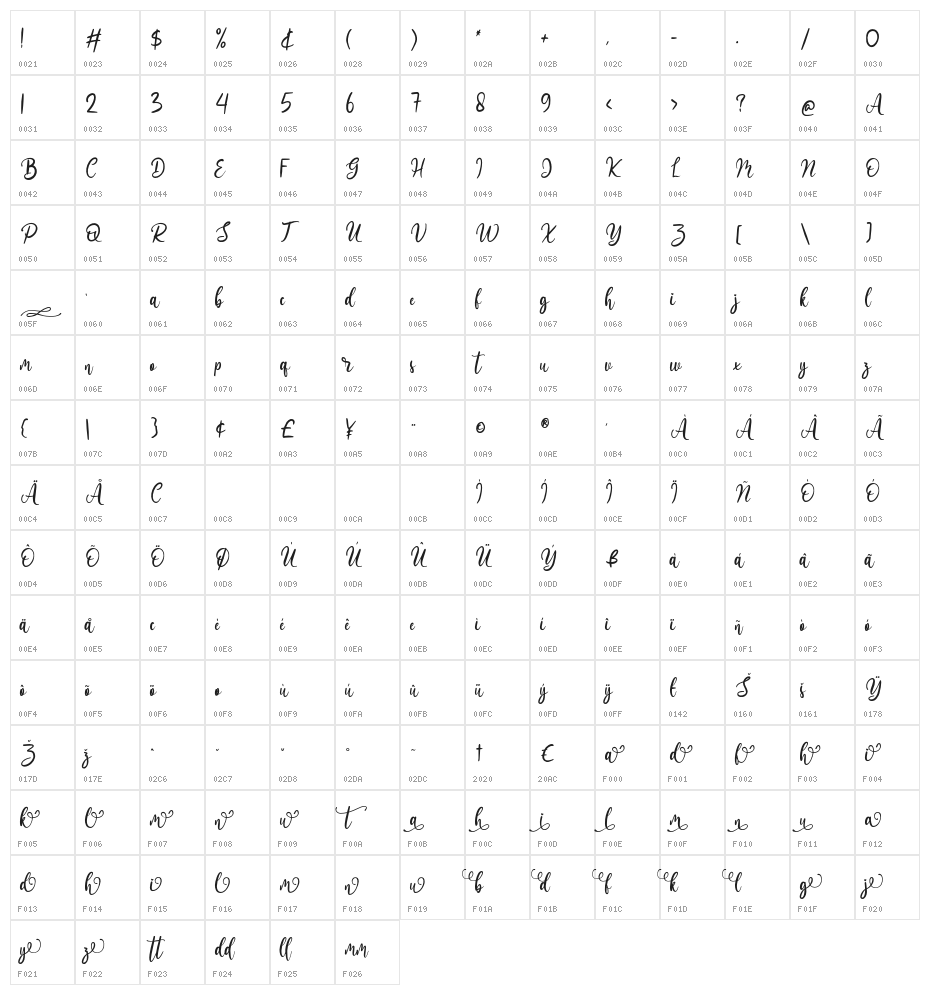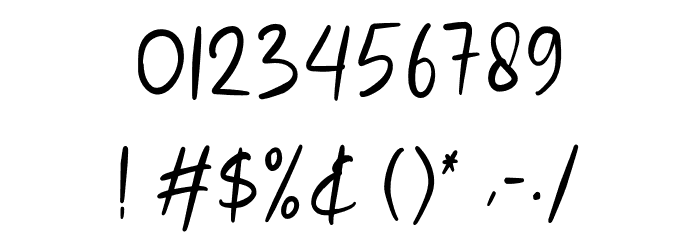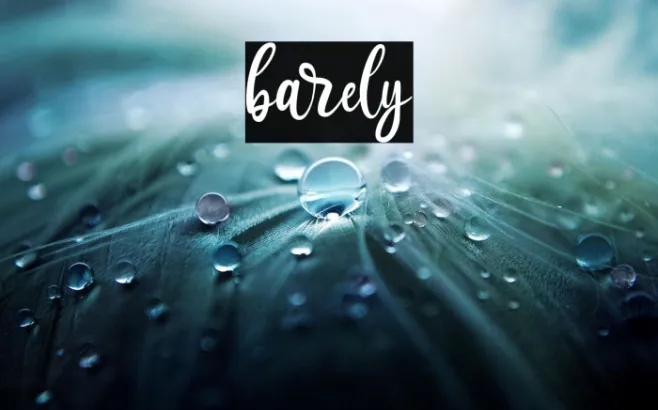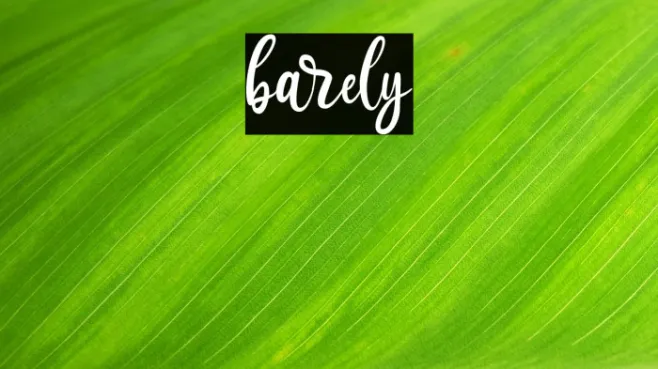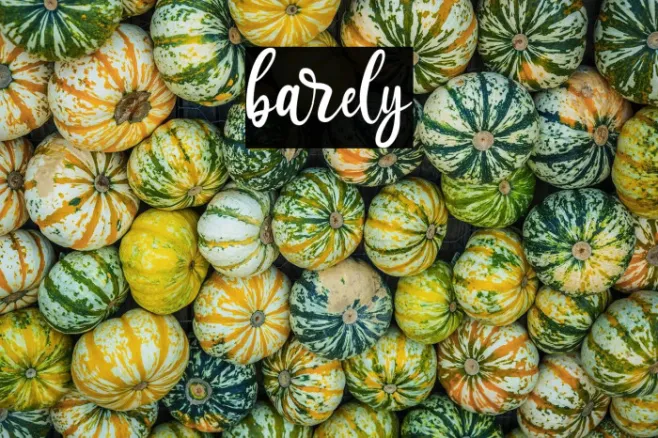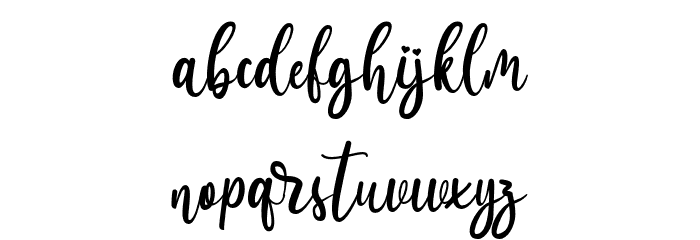
barely Font
barely Description
This font exudes a playful and elegant script style, characterized by its flowing, cursive letterforms. The uppercase letters are bold and sweeping, with a sense of movement that adds a dynamic touch. The lowercase letters maintain a consistent flow, with some letters featuring loops and flourishes that enhance its decorative appeal. The numerals are distinct and easy to read, maintaining the script style without compromising legibility. Special characters are well-integrated, matching the overall aesthetic with their curvy and stylish design. This font is perfect for projects that require a touch of sophistication and creativity.